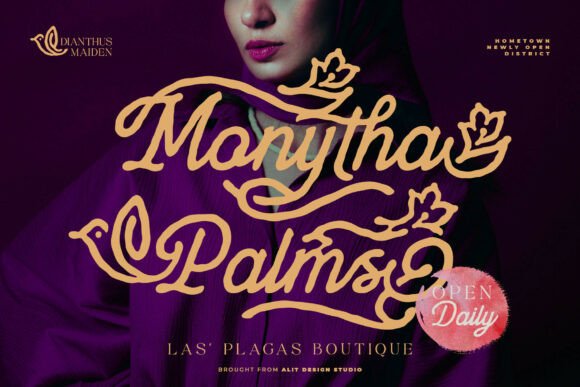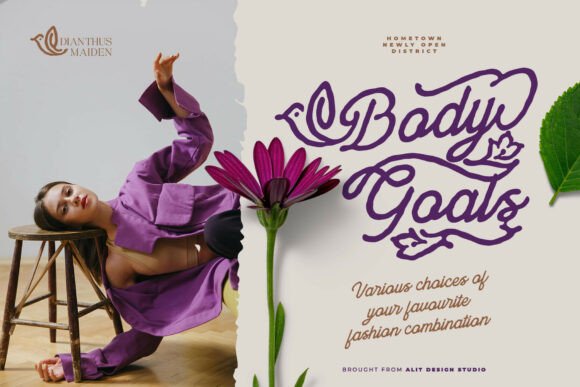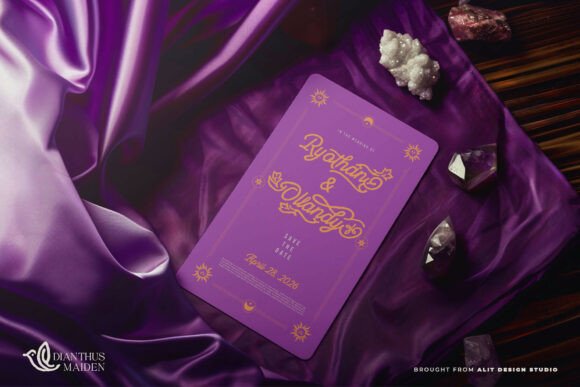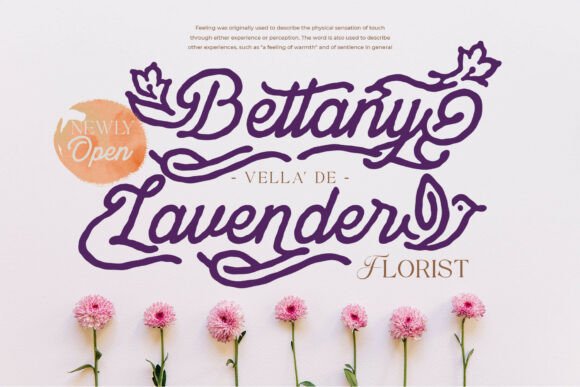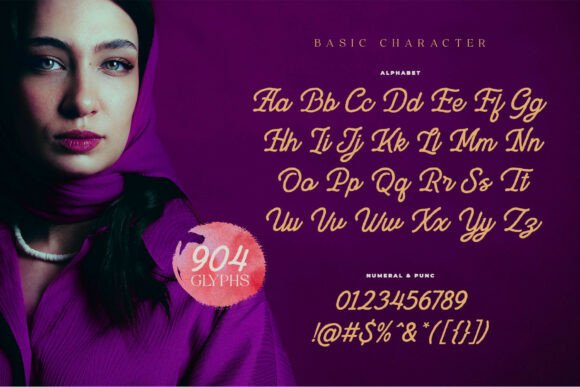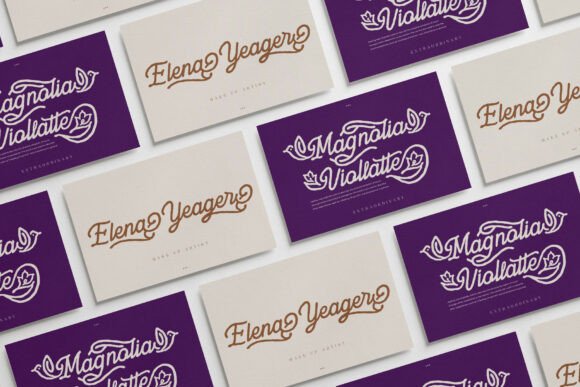
Unleashing Elegance with the Dianthus Maiden Font
As you sit at your desk, surrounded by design books, sketches, and scattered ideas, the urge to create something breathtakingly beautiful strikes. You envision a high-end fashion editorial, a boutique florist logo, or a luxurious wedding invitation that exudes sophistication and romance. And then, it hits you – the perfect typography to bring your vision to life.
Enter the Dianthus Maiden Font, a masterfully crafted script font designed to capture the essence of fluid, hand-drawn calligraphy. This luxurious typeface blends classic sophistication with modern botanical beauty, making it the perfect addition to any designer’s toolkit. Whether you’re looking to elevate your design portfolio or simply want to add a touch of elegance to your next project, the Dianthus Maiden Font is sure to impress.
With the Dianthus Maiden Font, you can create custom-made typography that feels effortlessly beautiful, and take your designs to the next level.
Dianthus Maiden Font Key Features
- Unique Characteristics: The font features a unique, elegant script style with a touch of vintage flair, making it perfect for creating beautiful and sophisticated designs.
- Font Metrics: The font metrics are carefully designed to ensure optimal readability and aesthetic appeal, making it perfect for use in body text, titles, and headings.
Dianthus Maiden Font Review
As a designer, I was excited to dive into the Dianthus Maiden Font. This script font is designed to evoke a sense of elegance and sophistication, perfect for wedding invitations, fashion branding, and more.
- The delicate flourishes and swashes add a touch of whimsy and romance to any design.
- The font’s high x-height makes it easily readable, even at smaller sizes.
- The wide range of weights and styles allows for great versatility in design applications.
- The font may not be the best choice for body text, as it can be quite ornate and distracting.
- The spacing between characters can be inconsistent, which may require manual adjustments in certain design scenarios.
- The font’s elegance can sometimes feel over-the-top or too dramatic for more casual designs.
Overall, I think Dianthus Maiden Font is a beautiful addition to any designer’s toolkit. While it may have some limitations, its unique charm and versatility make it a great choice for specific design projects. With a little creative restraint, this font can add a touch of magic to any design.
The Dianthus Maiden font is ideal for:
- Floral-themed designs and branding
- Vintage-inspired graphics and illustrations
For optimal results, pair the Dianthus Maiden font with a clean and simple design aesthetic.